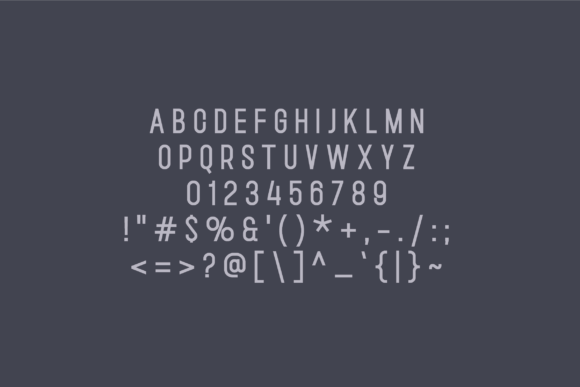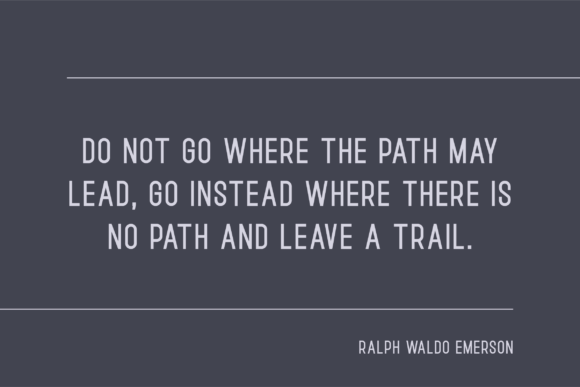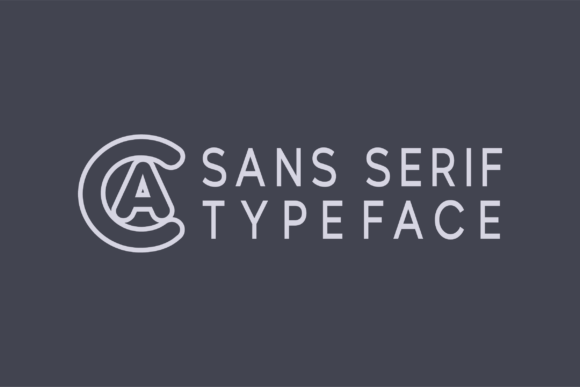
Introduction to Pencilina Font Font
Fonts play a crucial role in design, and the Pencilina Font font is a typeface that brings both character and versatility to any project. Whether you’re working on a branding project, a website, or a print design, the Pencilina Font font offers a unique style that can elevate your work.
| 👤 Author | A Christie |
Pencilina is a bold, modern, all caps sans-serif font designed for clean, impactful visuals.
Its perfect for logos, headlines, posters, packaging, and digital content Built for clarity and style, this typeface brings a strong, confident look to any design.
Key Features of Pencilina Font Font
Why Choose Pencilina Font Font?
The Pencilina Font font is more than just a typeface – it’s a design tool that helps you communicate your message with style and clarity. Its unique character set and versatile design make it suitable for a wide range of applications, from elegant invitations to bold headlines.
With its carefully crafted letterforms and balanced proportions, the Pencilina Font font ensures readability and visual appeal across all mediums.
What makes Pencilina Font font special?
The Pencilina Font font stands out with its unique design, exceptional readability, and versatility across various design applications.